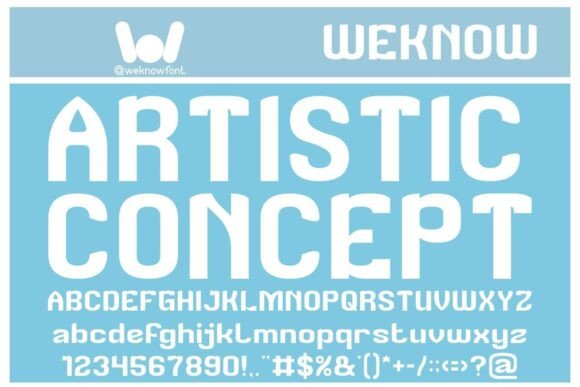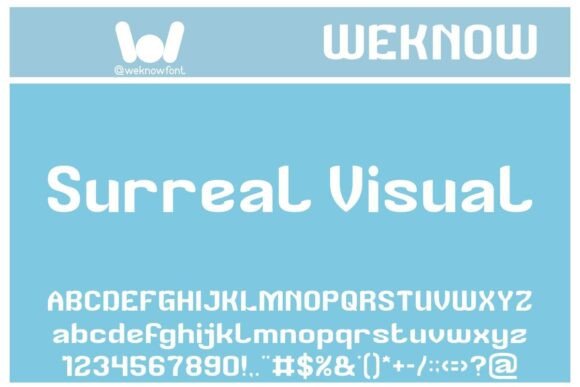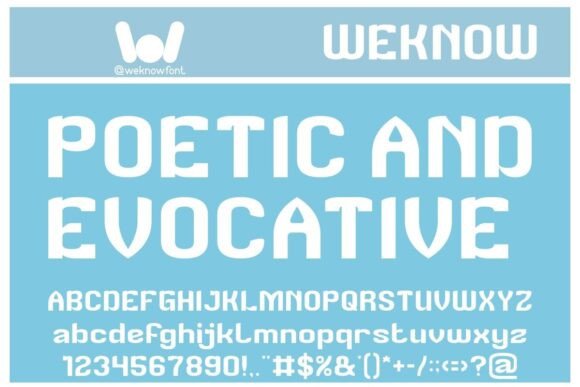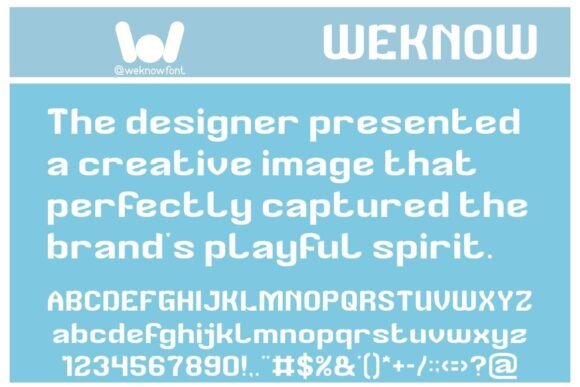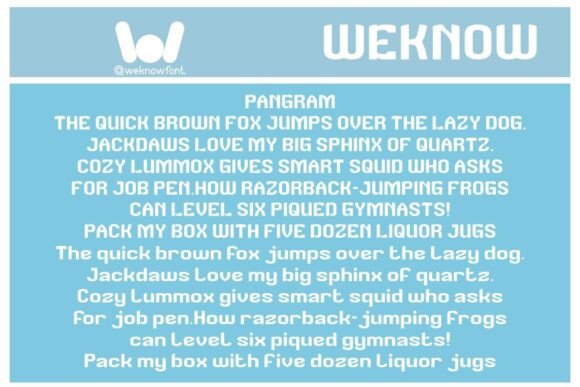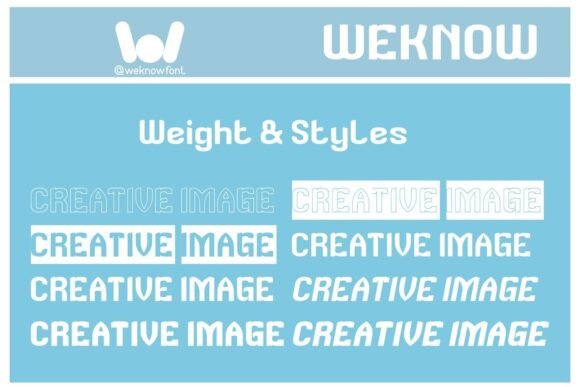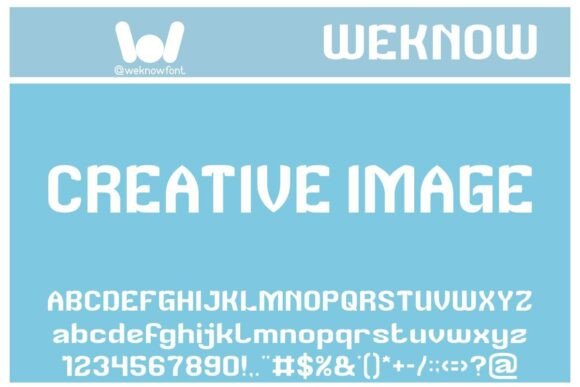
Unlocking Creative Potential: The Power of Creative Image Font
In the realm of typography, fonts play a pivotal role in shaping the visual identity of a brand, product, or creative project. Among the myriad of fonts available, Creative Image stands out as a geometric sans serif font that embodies a bold, modern, and stylized aesthetic. This article delves into the features, applications, and benefits of using Creative Image, a font that is poised to elevate your design ventures to new heights.
Introducing Creative Image: A Modern and Stylized Font
Creative Image is not just another font; it’s a design statement. Its geometric sans serif structure lends it a clean and contemporary look, making it an ideal choice for designers and crafters seeking to infuse their projects with a modern flair. The font’s bold weightage gives it a commanding presence, ensuring that your message is conveyed with clarity and impact.
Tech-Forward Design with a Youthful Appeal
One of the defining characteristics of Creative Image is its tech-forward design. In today’s digital age, where technology and innovation are paramount, this font helps your project appear cutting-edge and forward-thinking. Additionally, its youthful appeal makes it particularly effective in targeting younger demographics, ensuring your brand or project resonates with a diverse and vibrant audience.
Applications Across Various Industries
The versatility of Creative Image is one of its most compelling advantages. This font can be seamlessly integrated into a multitude of applications, including:
- Logo and Logotype Design: Creative Image can help carve a distinctive corporate and brand identity, setting your brand apart from competitors.
- Fashion Industry: For fashion brands and designers, this font serves as a dynamic typography choice, conveying style and sophistication.
- Posters, Music and Movie Titles, Game Interfaces: The font’s vibrant and bold presence makes it a standout selection for creative projects that demand attention.
- Magazine, Book, and Comic Layouts: Creative Image resonates with diverse audiences, making it a favored choice for editorial and publishing projects.
- Social Media and Web Design: Spruce up your social media presence on platforms like YouTube and Instagram, or elevate your website’s aesthetic appeal with this versatile font.
Benefits of Using Creative Image
Choosing Creative Image for your design projects comes with several benefits:
- Distinctive Identity: The font helps in creating a unique and memorable brand identity.
- Versatility: Its adaptability across various mediums and applications makes it a valuable asset for designers.
- Modern Aesthetic: Ensures your project looks contemporary and appealing to a broad audience.
- Enhanced Engagement: The font’s dynamic and youthful appeal can increase engagement and interaction with your target audience.
Creative Image is more than just a font; it’s a creative tool that can transform your design projects. Whether you’re a designer, brand owner, or crafter, this geometric sans serif font offers the perfect blend of modernity, versatility, and impact. By choosing Creative Image, you’re not just selecting a typography option; you’re making a statement about your brand’s identity and values. So, consider Creative Image for all your inventive design ventures and unlock the full potential of your creative projects.
In the world of design, making a statement is crucial. With Creative Image, you have the power to do just that. Embrace the future of design with a font that is bold, modern, and uniquely positioned to make your mark in the world of creativity and innovation.